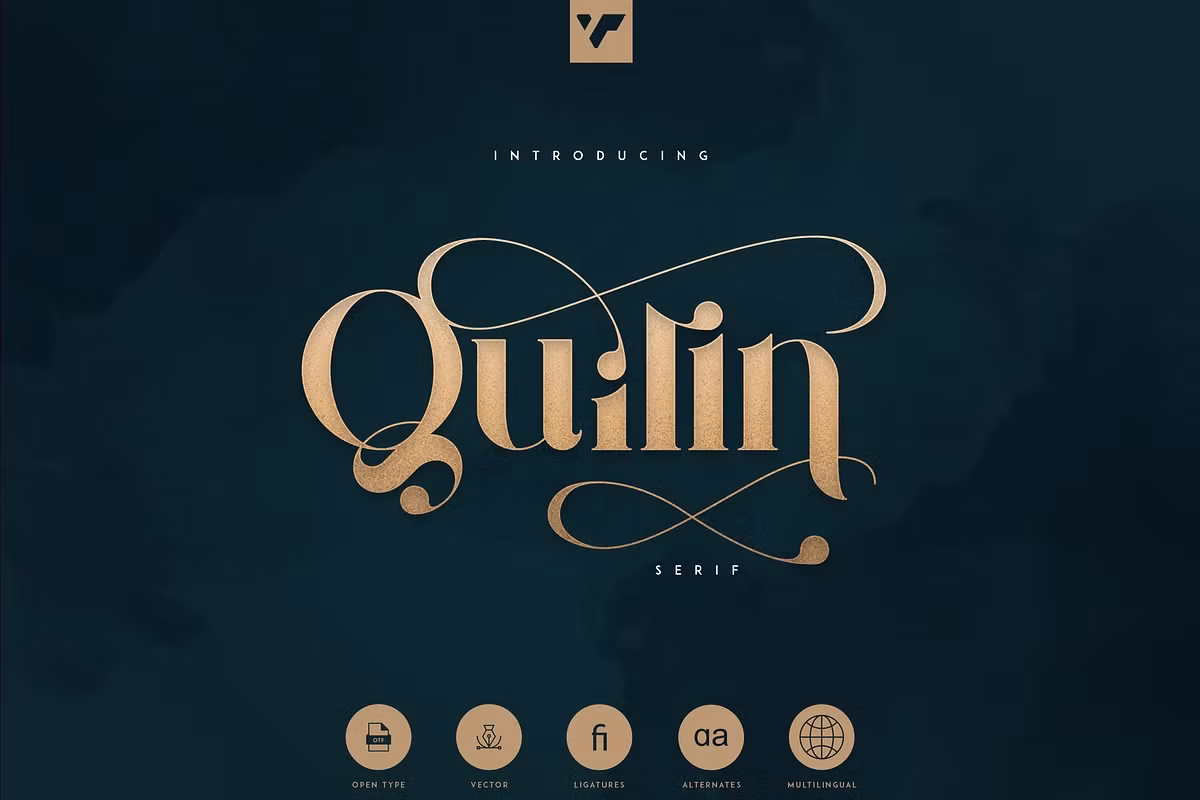
Quilin Serif - latin and cyrillic Free Download
Quilin Serif – Latin and Cyrillic Font Free Download is a beautifully crafted serif typeface that combines timeless elegance with global versatility. Please note, you are required to purchase this font for commercial use. It is available for free download for testing and personal projects only.
Featuring full support for both Latin and Cyrillic alphabets, Quilin is perfect for international branding, editorial design, packaging, books, and digital media. Its high-contrast strokes and refined serifs give your text a classic, readable, and luxurious appearance across languages and platforms.